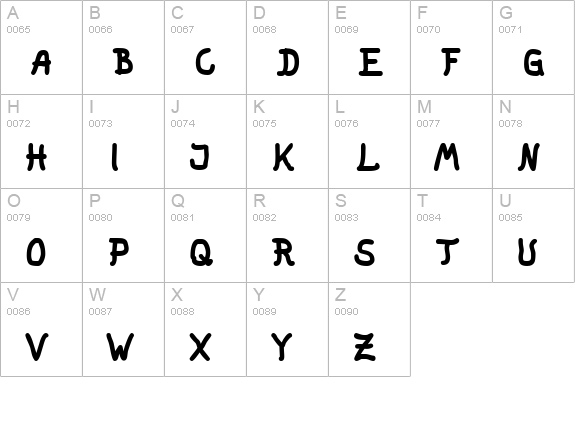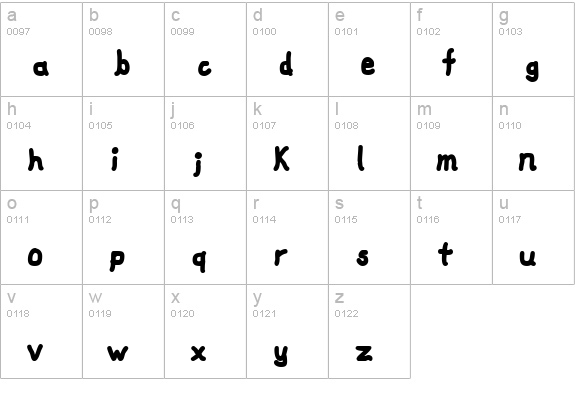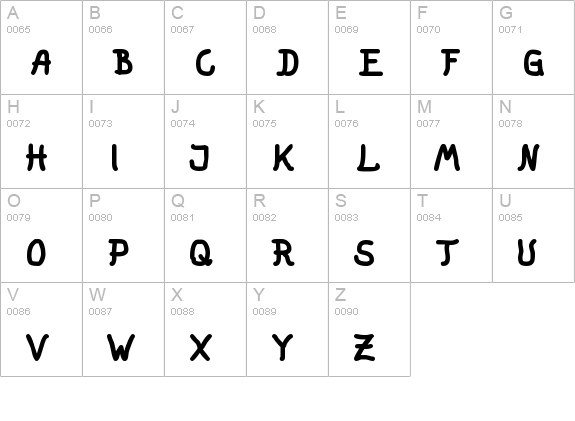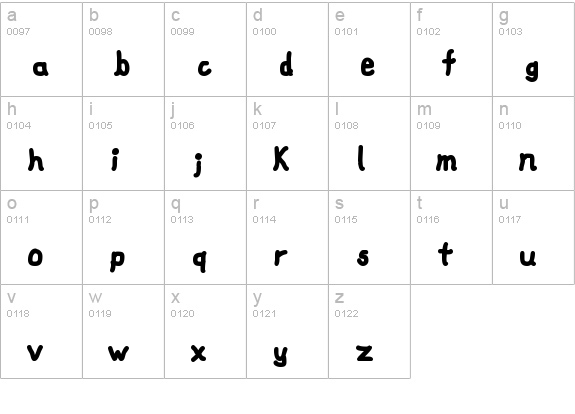
fat marker Font Details
Introducing the stunning Fat Marker font, a bold and eye-catching typeface that is sure to make a statement in any design project. This unique font boasts thick, chunky lines that give off a modern and playful vibe, perfect for adding a touch of personality to your creations. With its smooth curves and exaggerated strokes, Fat Marker is ideal for headlines, posters, branding, and more. The best part? Fat Marker is completely free to download at FontsMarket.com! Take advantage of this fantastic opportunity to elevate your designs with this one-of-a-kind font. Whether you're a designer, artist, or simply someone looking to add a creative touch to your projects, Fat Marker is the perfect choice. Download it now and let your creativity soar!